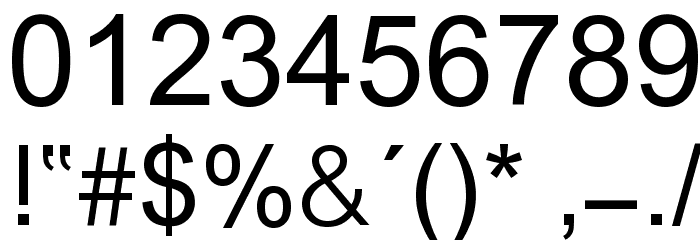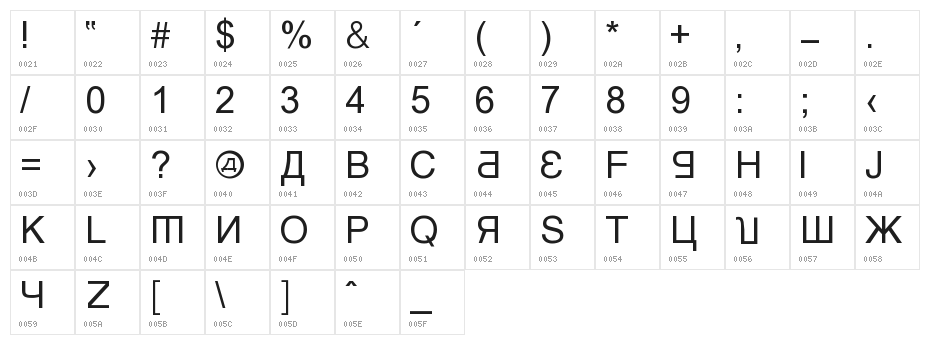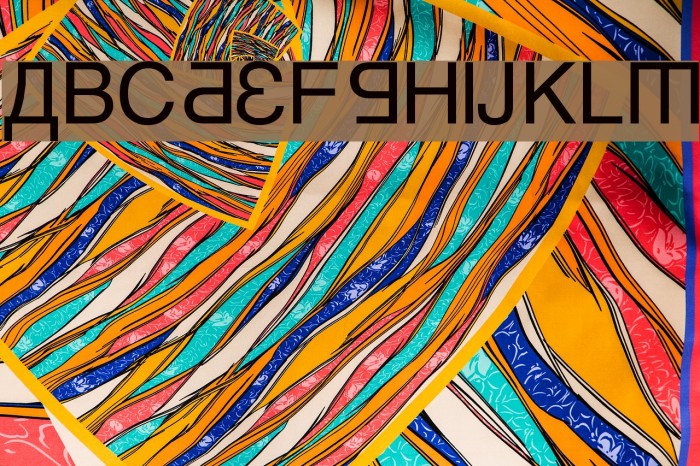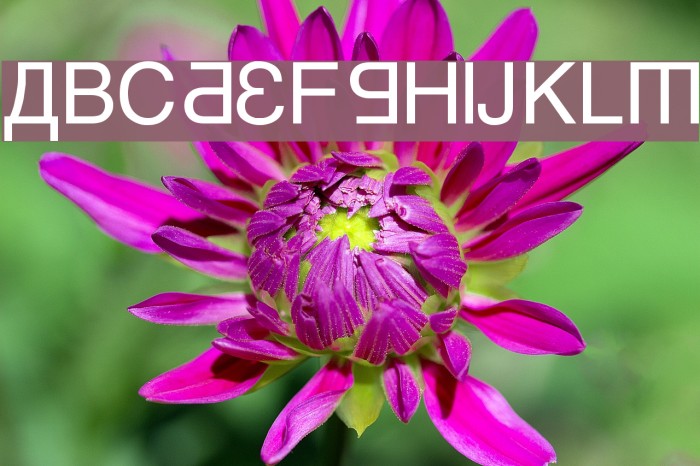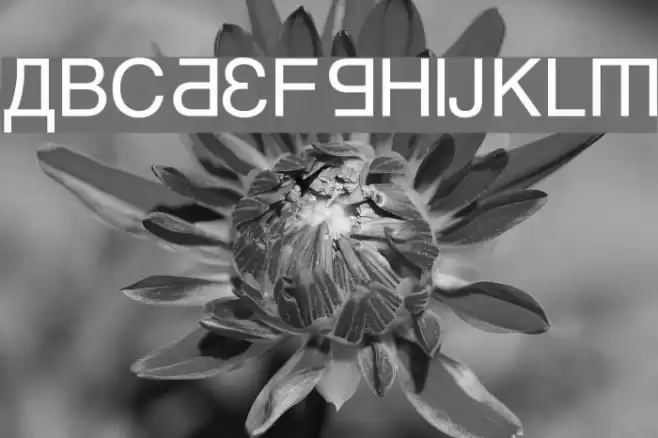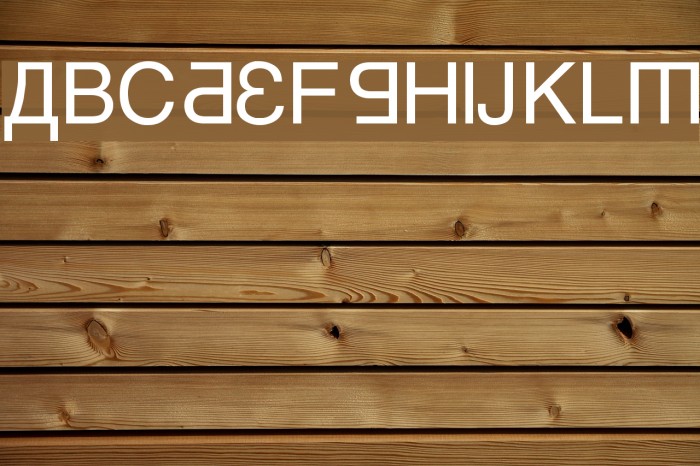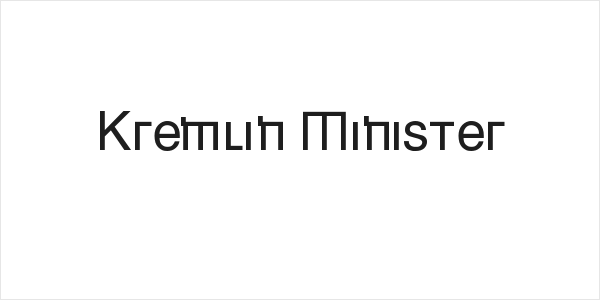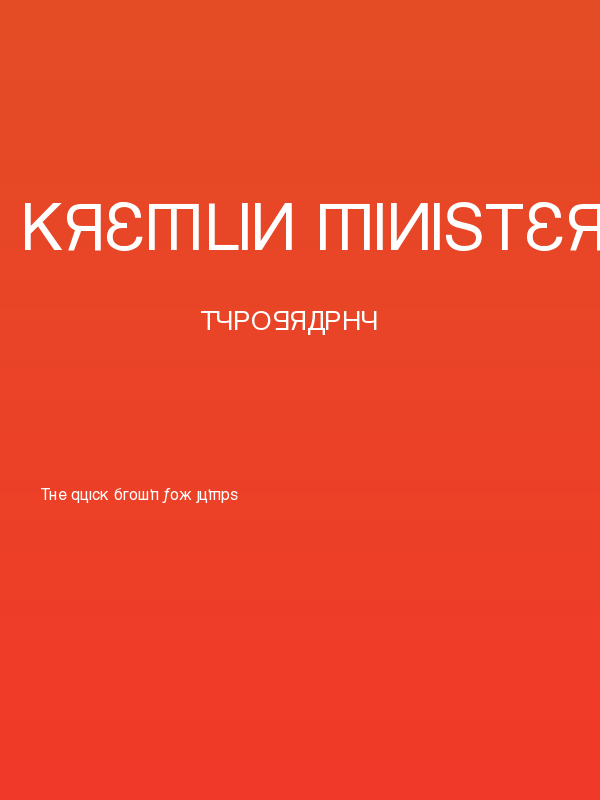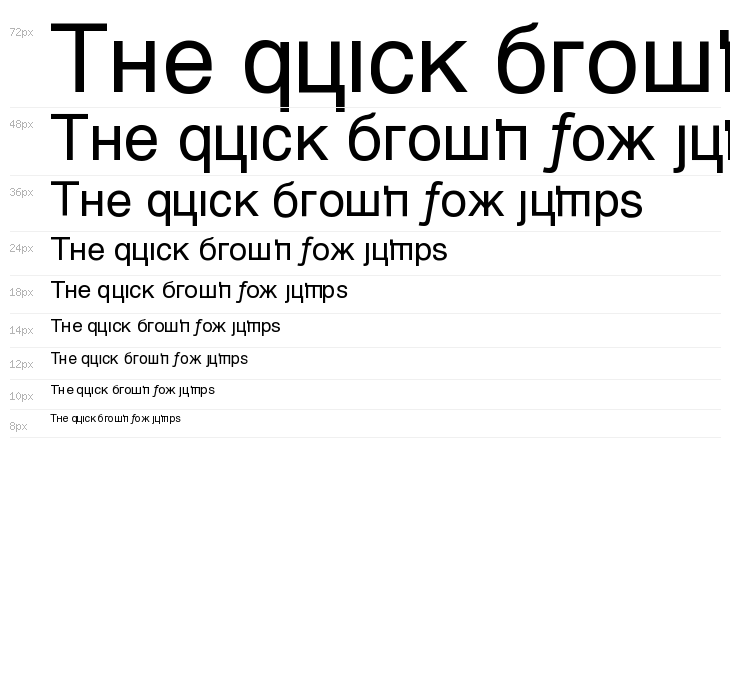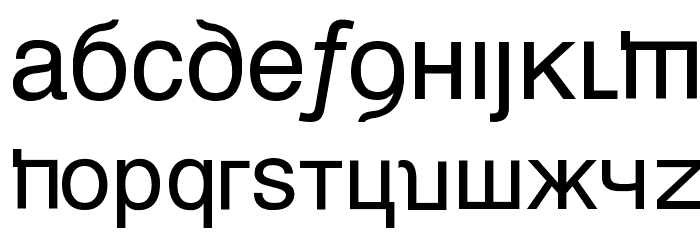
Kremlin Minister Font
Kremlin Minister Description
This font features a modern and clean design with a sans-serif style, characterized by its geometric shapes and uniform stroke widths. The uppercase letters are bold and assertive, while the lowercase letters maintain a consistent and harmonious appearance. The numerals are clear and easy to read, making them suitable for various applications. Special characters are well-integrated, maintaining the overall aesthetic of the font. The design is versatile, suitable for both digital and print media, offering a professional and contemporary look.